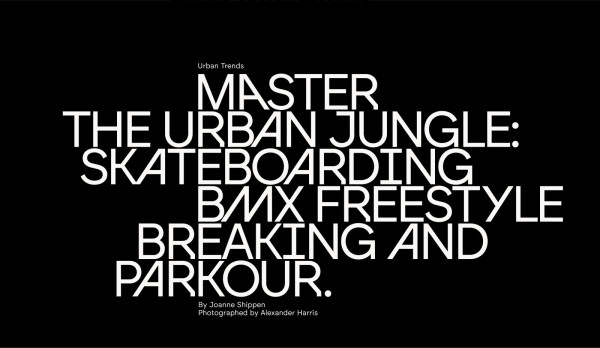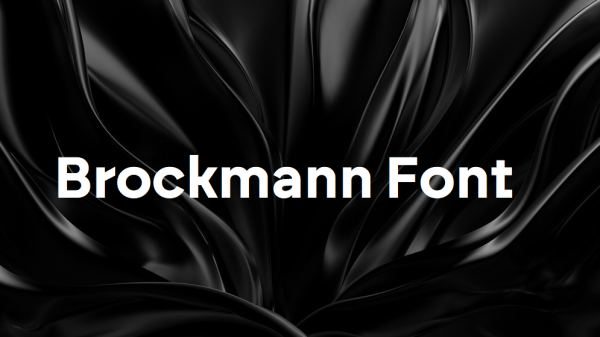
Brockmann Font, a font inspired by Josef Müller-Brockmann, You can use it as a logo, badge, insignia, packaging, headline, poster, t-shirt/apparel, greeting card, and wedding invitation.
| Designer Name: | Josef Müller-Brockmann |
| Classification: | Sans Serif Fonts, Style / Aesthetic Fonts |